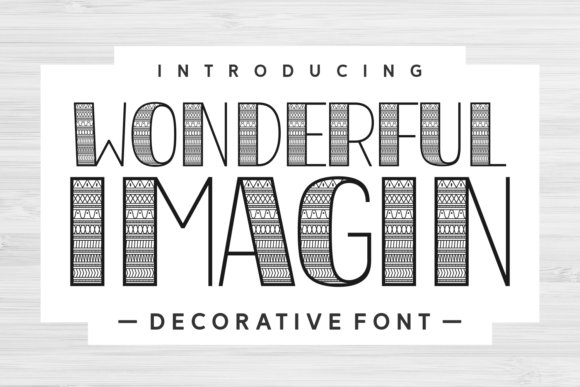
Presenting Wonderful Imagin Font, a decorative treasure that will captivate your senses and ignite your creativity! Embark on a journey of aesthetic bliss as you explore the enchanting realm of this geometric masterpiece. Crafted with meticulous precision by the skilled artisans at Creative Fabrica Fonts, Wonderful Imagin is more than just a font; it's an artistic expression waiting to be unleashed.
Immerse yourself in the world of boho chic and let your designs flourish with elegance and charm. Wonderful Imagin's intricate patterns, reminiscent of exquisite lacework, dance across your words, adding a touch of whimsy and sophistication. Each character is meticulously crafted, adorned with delicate lines and graceful curves that evoke a sense of timeless beauty.
With Wonderful Imagin as your creative companion, you'll have the power to transform ordinary text into breathtaking works of art. Create stunning logos that demand attention, design eye-catching posters that ignite imaginations, and craft personalized greeting cards that leave a lasting impression. Let your creativity soar as you explore the endless possibilities that await.
Wonderful Imagin is not just a font; it's a gateway to a world of aesthetic wonders. Its versatility knows no bounds, inviting you to explore a myriad of design adventures. Embrace the allure of bohemian style, add a touch of vintage charm, or infuse your projects with a modern edge. The possibilities are limitless, and the results are sure to captivate and inspire.